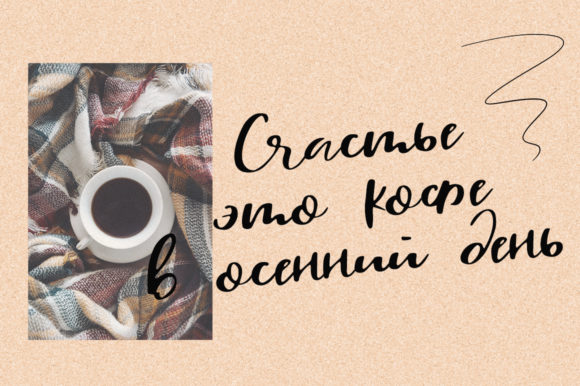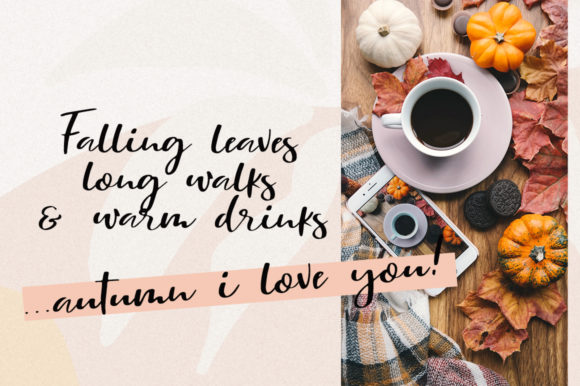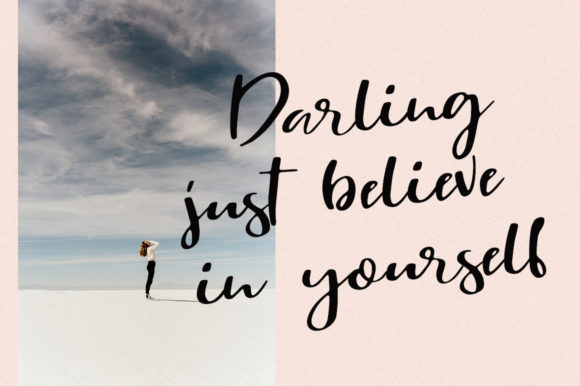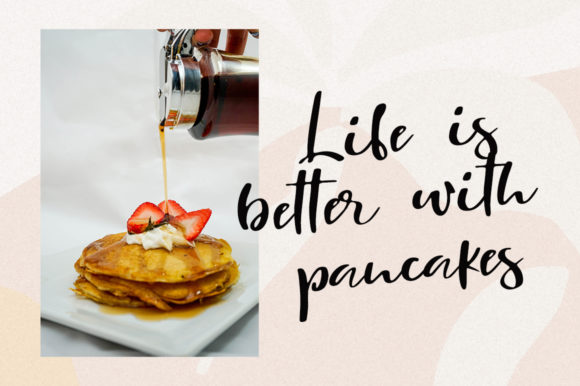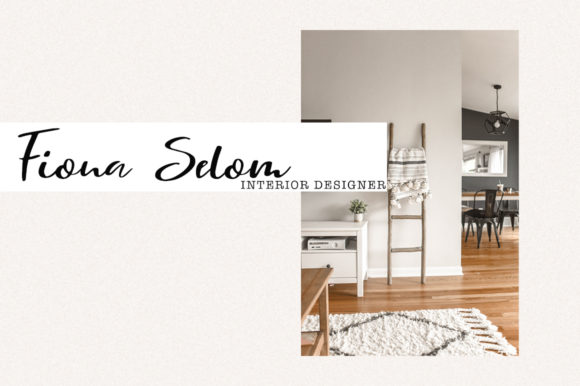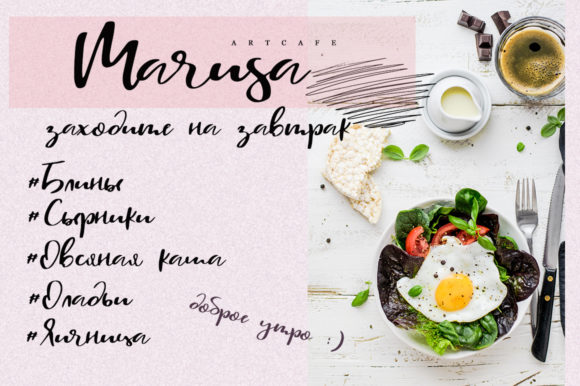
Introduction to Malutik Font Font
Fonts play a crucial role in design, and the Malutik Font font is a typeface that brings both character and versatility to any project. Whether you’re working on a branding project, a website, or a print design, the Malutik Font font offers a unique style that can elevate your work.
Malutik is a casual, yet elegant script font with a modern feel.
Get inspired by its authentic simplicity .
Key Features of Malutik Font Font
Why Choose Malutik Font Font?
The Malutik Font font is more than just a typeface – it’s a design tool that helps you communicate your message with style and clarity. Its unique character set and versatile design make it suitable for a wide range of applications, from elegant invitations to bold headlines.
With its carefully crafted letterforms and balanced proportions, the Malutik Font font ensures readability and visual appeal across all mediums.
What makes Malutik Font font special?
The Malutik Font font stands out with its unique design, exceptional readability, and versatility across various design applications.